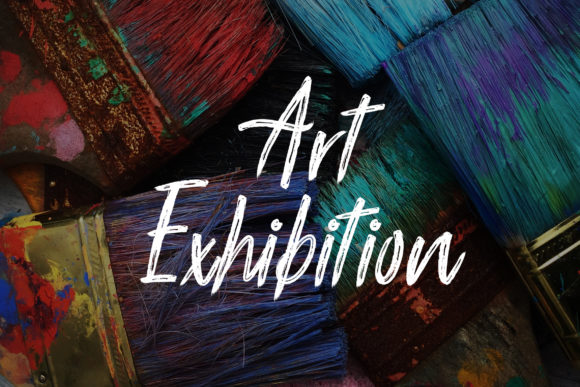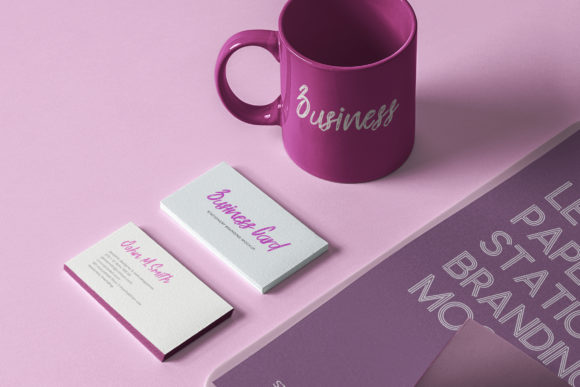
About Right Flower Font
Right Flower is a delicate and distinct brushed handwritten font. It has beautiful and well balanced characters and as a result, it matches a wide pool of designs. Add it to your most creative ideas and notice how it makes them come alive!